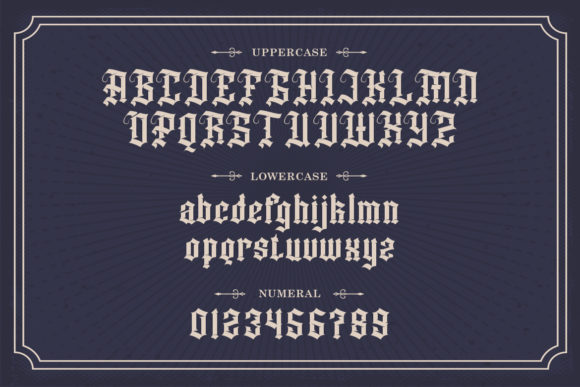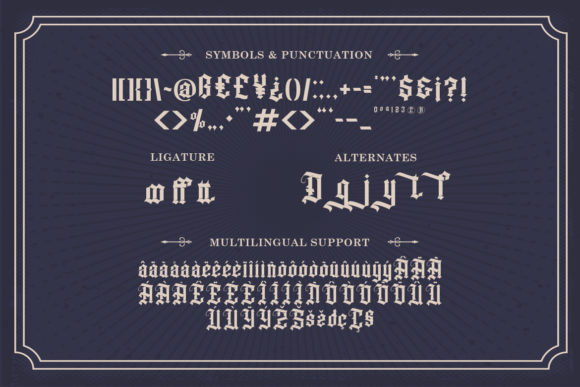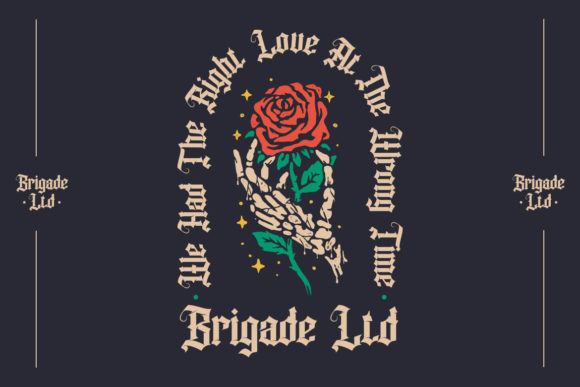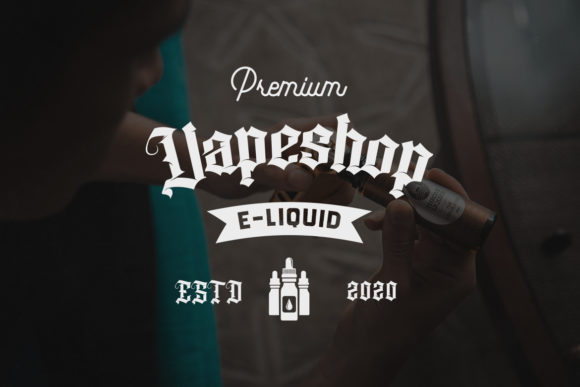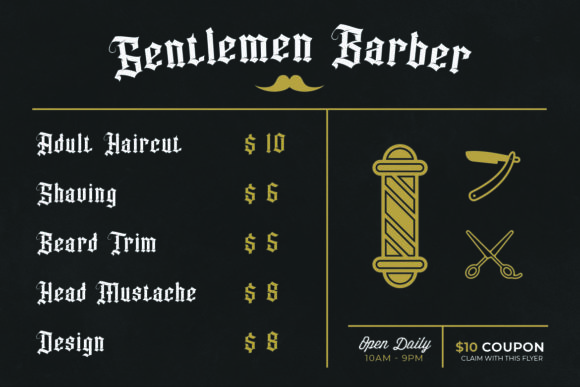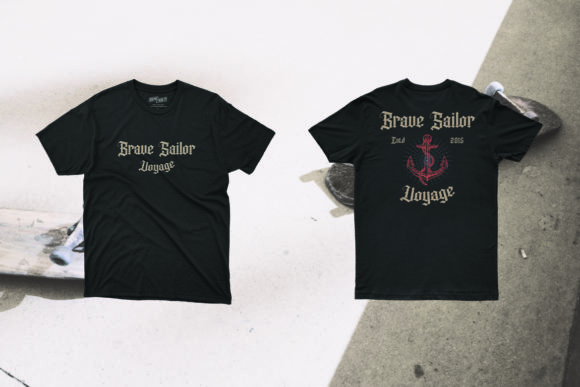
Dutch Brigade Font: A Modern Blackletter Marvel
In the realm of typography, few fonts have managed to capture the essence of modern blackletter style as effectively as the Dutch Brigade font. This stunning typeface has been making waves in the design community, and for good reason. Dutch Brigade is a modern blackletter font that is both appealing and enthralling, making it the perfect addition to any design project that requires a touch of elegance and sophistication.
What is Dutch Brigade Font?
Dutch Brigade is a contemporary blackletter font that draws inspiration from traditional calligraphy and lettering techniques. Its unique blend of classic and modern elements makes it an instant standout in the world of typography. The font features intricate details, elegant lines, and a distinctive texture that gives it a luxurious feel. Whether you’re a designer, crafty DIY enthusiast, or simply someone who appreciates beautiful typography, Dutch brigade font is sure to captivate you.
Uses of Dutch Brigade Font
One of the most exciting aspects of Dutch Brigade font is its versatility. This incredible typeface can be used in a wide range of applications, including:
- Product Logos: Create a lasting impression with a custom logo that showcases your brand’s personality and style.
- Posters: Grab attention and make a statement with Dutch Brigade font’s bold, eye-catching design.
- Barber Shops: Add a touch of classic elegance to your barber shop’s branding and marketing materials.
- Headlines: Make your headlines pop with Dutch Brigade font’s unique blend of modern and traditional elements.
- Packaging: Elevate your product packaging with a sophisticated font that exudes luxury and refinement.
- Badges: Create custom badges that feature your name, initials, or logo in stunning detail.
- Wedding Cards: Add a touch of romance and whimsy to your wedding stationery with Dutch Brigade font’s elegant design.
Why Choose Dutch Brigade Font?
So, what sets Dutch Brigade font apart from other typefaces on the market? Here are just a few reasons why designers and crafters are falling in love with this incredible font:
- Unique Design: Dutch Brigade font boasts a distinctive design that is both modern and timeless.
- Highly Versatile: Use Dutch Brigade font in a wide range of applications, from logos and posters to packaging and wedding cards.
- Elegant and Sophisticated: Add a touch of luxury and refinement to your designs with Dutch Brigade font’s elegant lines and intricate details.
- Easy to Read: Despite its ornate design, Dutch Brigade font is surprisingly easy to read, making it perfect for body text and headlines.
Tips for Using Dutch Brigade Font
To get the most out of Dutch Brigade font, here are a few tips to keep in mind:
- Use it Sparingly: Dutch Brigade font is a bold, attention-grabbing typeface. Use it sparingly to avoid overwhelming your design.
- Experiment with Colors: Dutch Brigade font looks stunning in a range of colors, from rich blacks and dark grays to bold brights and pastels.
- Pair it with Other Fonts: Combine Dutch Brigade font with other typefaces to create a unique and visually appealing design.
In conclusion, Dutch Brigade font is a modern blackletter marvel that is sure to captivate designers and crafters alike. Its unique blend of classic and modern elements, elegant lines, and intricate details make it the perfect addition to any design project. Whether you’re looking to create a stunning logo, eye-catching poster, or elegant wedding stationery, Dutch Brigade font is the perfect choice. So why wait? Discover the beauty and versatility of Dutch Brigade font for yourself and take your designs to the next level.